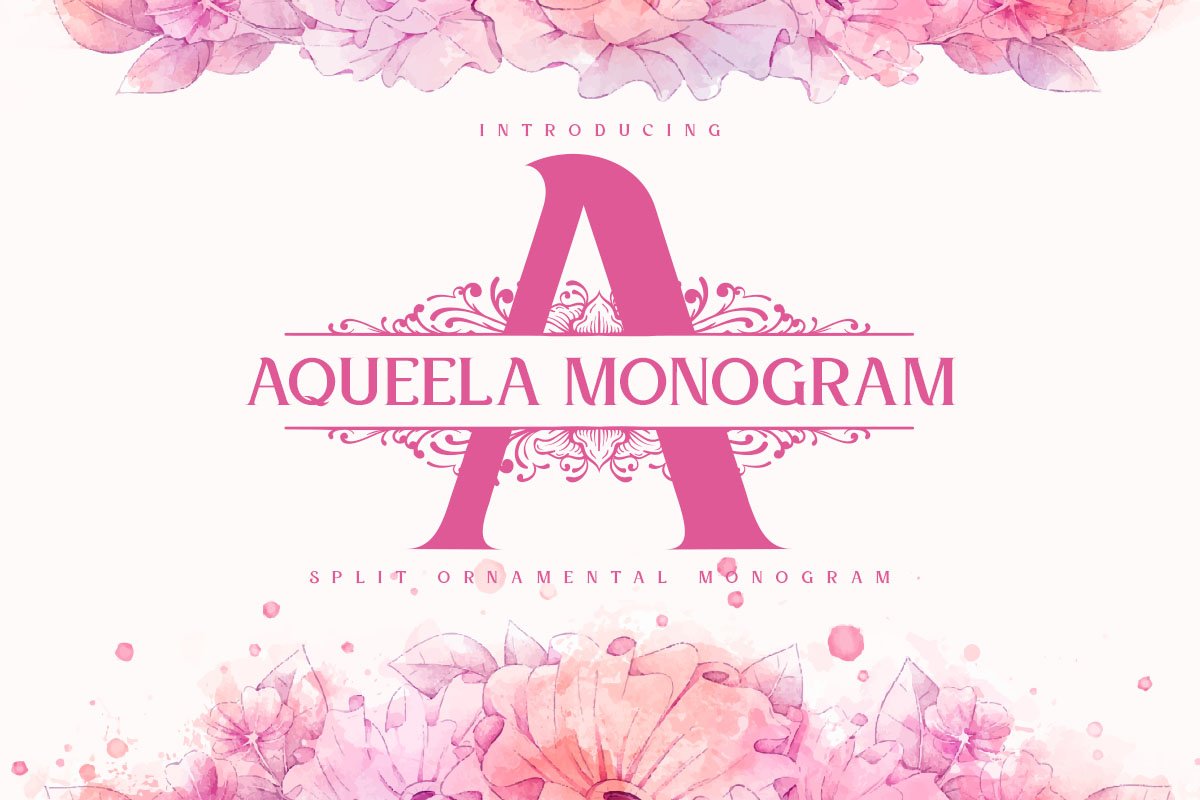
Aqueela Monogram Fonts
Aqueela is an outstanding monogram display font. Masterfully designed to become a true favorite, this font has the potential to bring each of your creative ideas to the highest level!